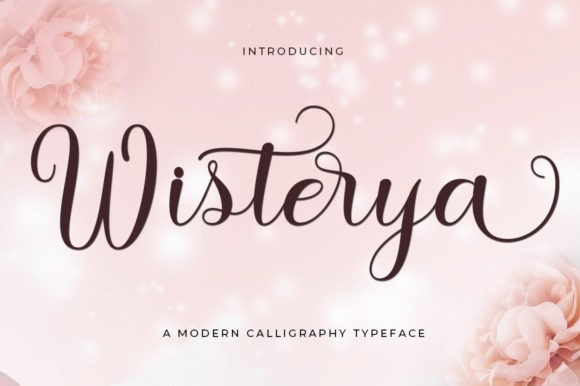
Embark on a typographic journey with Wisterya Script Font, a captivating creation by Black Studio that will ignite your imagination and transform your creative visions into stunning realities. This playful and modern script font, adorned with an irregular baseline, exudes an authentic charm that breathes life into your designs.
Picture the elegance of hand-lettered wedding invitations, where Wisterya's graceful strokes weave tales of love and commitment. Its whimsical nature lends itself perfectly to stationary art, adding a touch of personal flair to your correspondence. Unleash your creativity on social media, crafting eye-catching posts that demand attention and leave a lasting impression. And when the time comes to spread joy and warmth, Wisterya's enchanting glyphs will dance across greeting cards, carrying heartfelt messages to loved ones.
Wisterya's versatility knows no bounds. It's a font that embraces individuality, allowing you to tailor it to your unique style. With its PUA encoding, accessing the dazzling glyphs and swashes is a breeze, empowering you to effortlessly add intricate details and flourishes to your designs. Discover a wealth of special features, including alternate glyphs and ligatures, that elevate your typography to new heights of sophistication and artistry.
Immerse yourself in the world of Wisterya Script Font, where creativity flourishes and imagination takes center stage. Let your designs blossom with the beauty of this extraordinary font, captivating your audience with its undeniable charm and elegance. Wisterya is more than just a font; it's an invitation to embark on an artistic adventure, where every word you type becomes a testament to your unique vision.